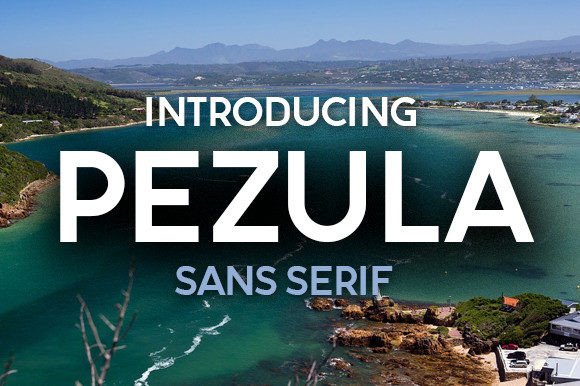
Step into the realm of elegance and sophistication with Pezula, the captivating Sans Serif font that will transform your creative visions into breathtaking realities. Its graceful curves, sharp edges, and harmonious proportions dance together to create a symphony of visual delight.
Unleash your imagination and let Pezula guide your designs to new heights of artistry. Whether you're crafting wedding books, invitations, posters, or any project that demands a touch of timeless beauty, Pezula will elevate your work to new levels of sophistication.
With Pezula by your side, your words will take on a life of their own, captivating your audience with their charm and elegance. Experience the joy of seamless readability as Pezula's carefully crafted characters guide your readers through your content with effortless grace.
But Pezula's allure extends far beyond mere aesthetics. Its versatile nature allows it to effortlessly adapt to a wide range of design styles, from classic and traditional to modern and contemporary. Whether you're creating a timeless wedding book or a cutting-edge flyer, Pezula will mold itself seamlessly into your vision, enhancing your message with its timeless appeal.
As you immerse yourself in the world of Pezula, you'll discover a font that not only meets your creative needs but also exceeds your expectations. Its versatility, elegance, and readability combine to create a font that will leave a lasting impression on your audience.
So embrace the beauty of Pezula, and embark on a creative journey where your designs will blossom into masterpieces. Let Pezula be your guiding light as you create works of art that captivate, inspire, and leave an enduring legacy of excellence.